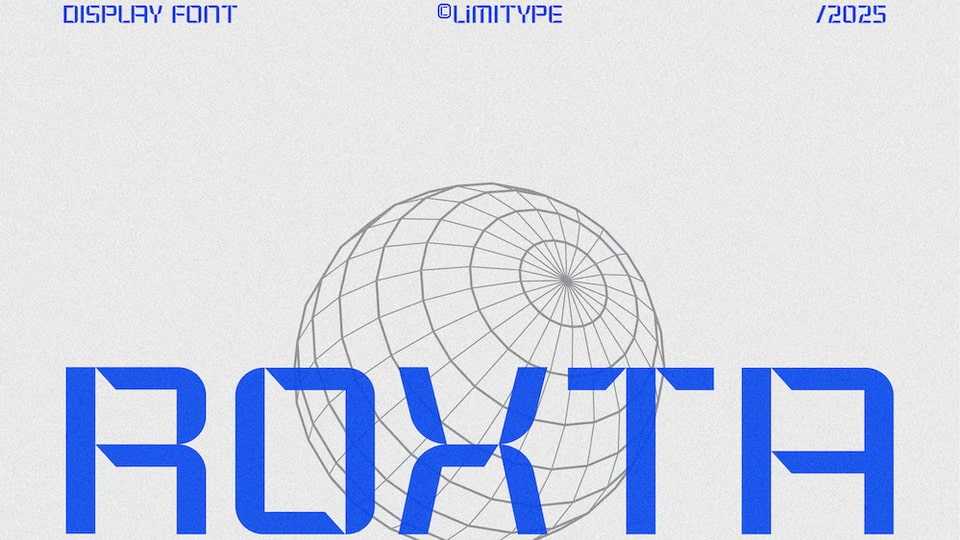
Download Roxta font, modular display typeface that blends modern design with a futuristic digital aesthetic. Its unique, geometric letterforms are designed to grab attention, making it the perfect choice for digital projects.